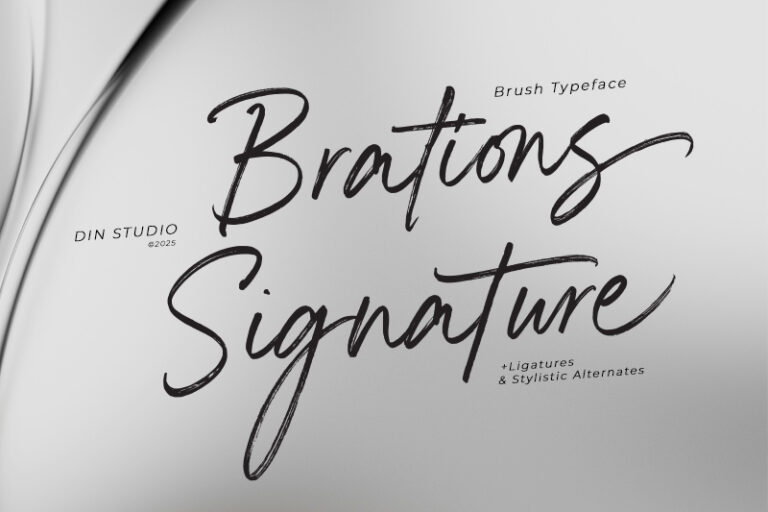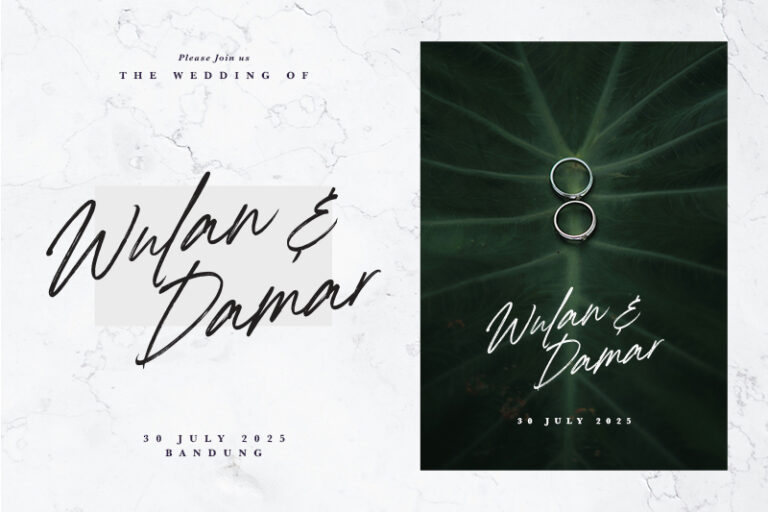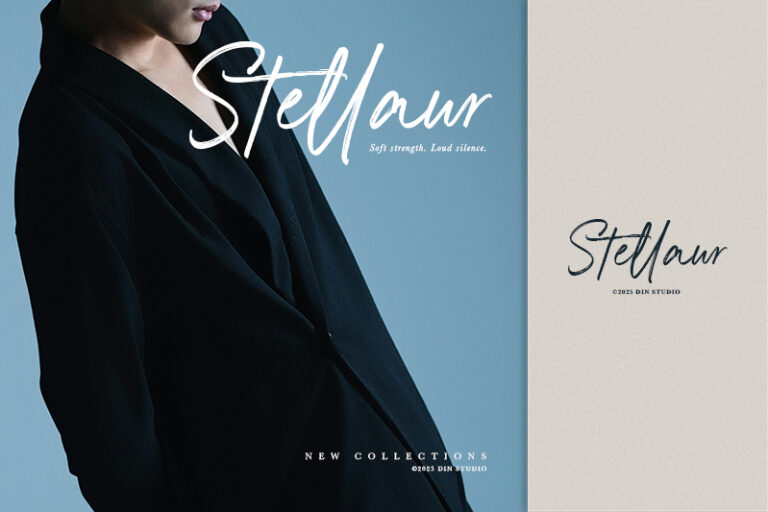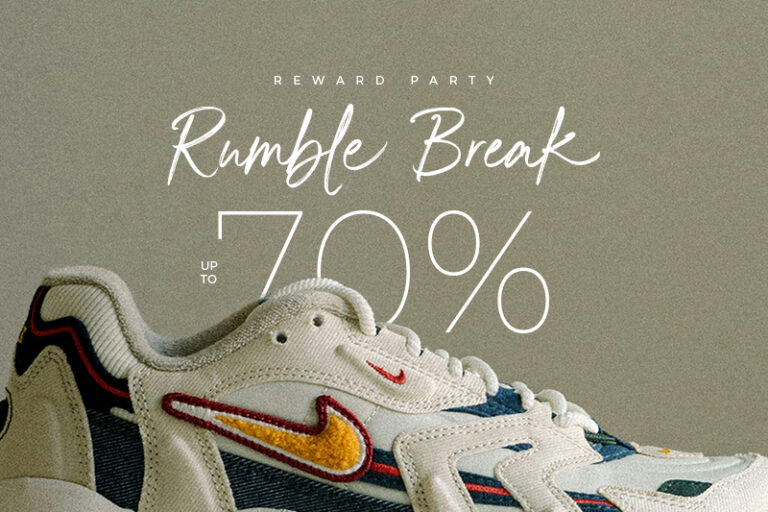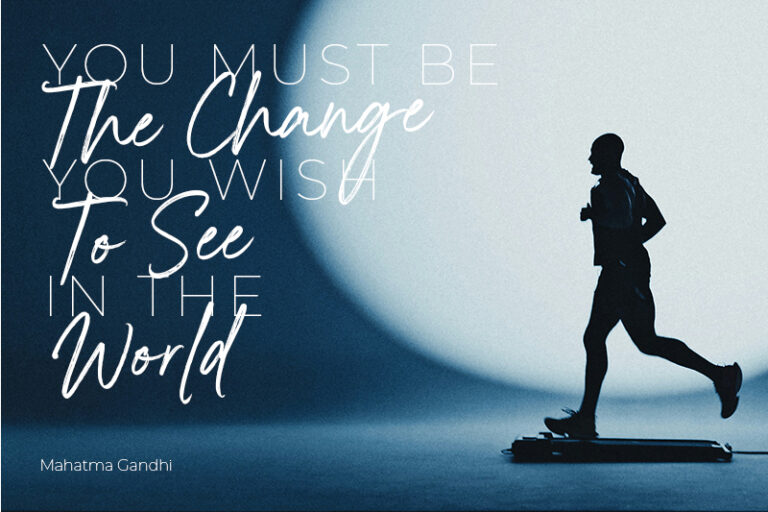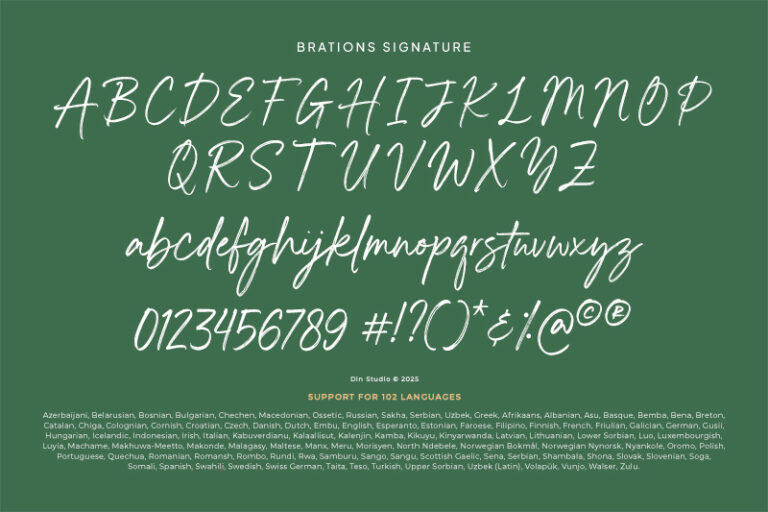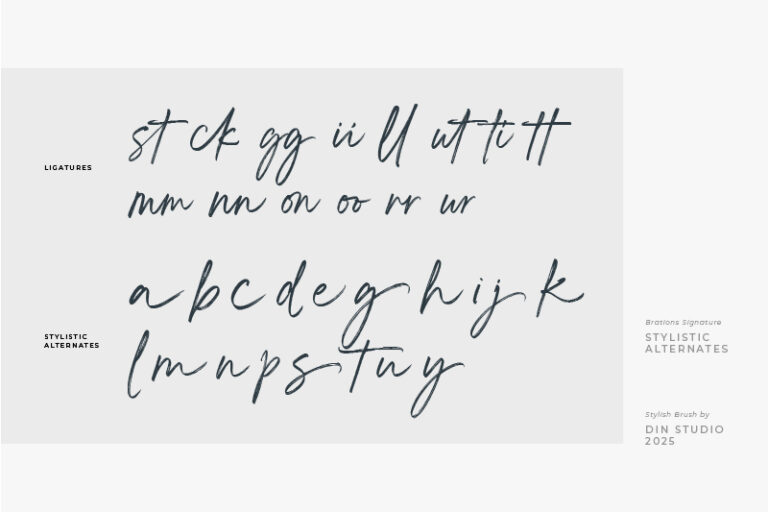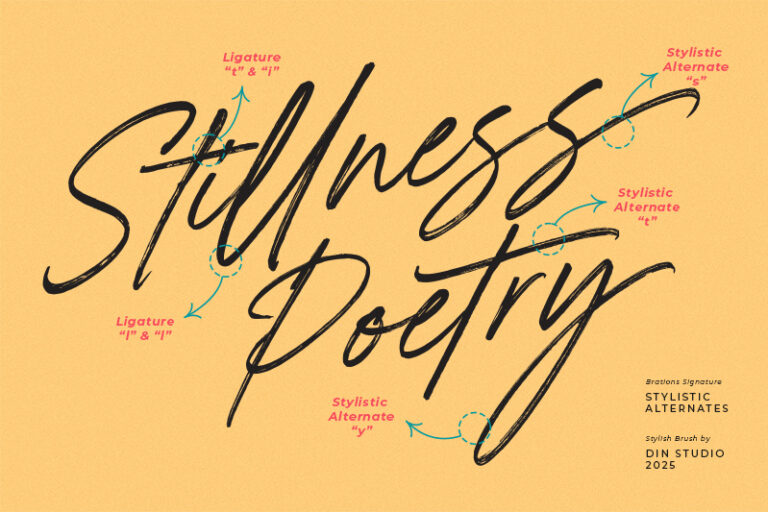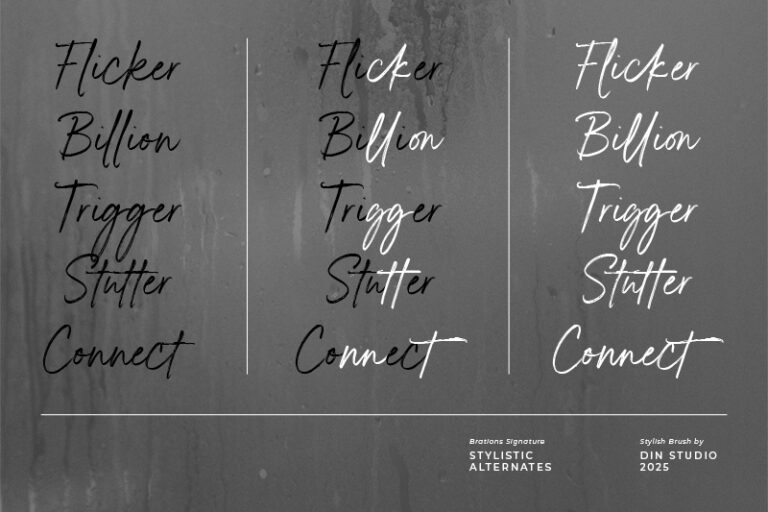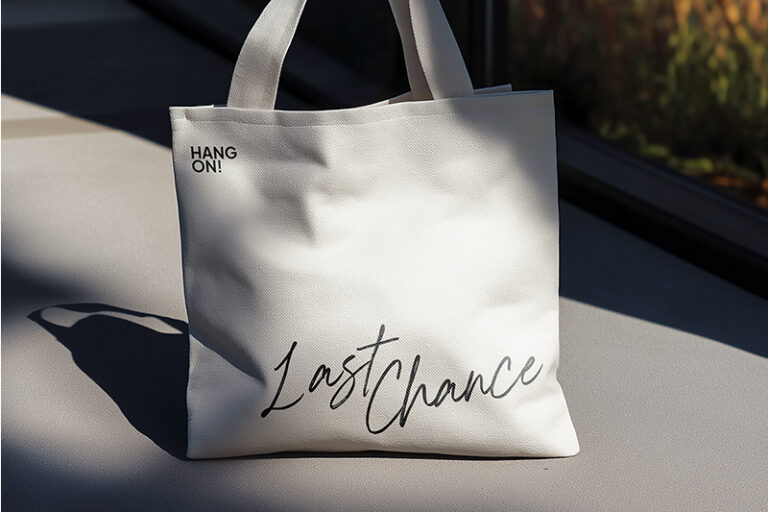
Brations Signature – Elegant Brush Script Font
Brations Signature
Brations Signature is a brush script font designed to capture the natural flow and charm of authentic handwriting. Crafted with smooth, expressive strokes, this font beautifully mimics the texture and motion of real brush lettering. Each letter in Brations Signature is created with attention to detail—featuring fluid lines, natural curves, and dynamic movement that reflect the beauty of hand-painted brushwork. The result is a typeface that feels organic, stylish, and effortlessly modern. In addition, enjoy the features here.
- Alternates
- Ligatures
Brations Signature fits in branding, quotes, name cards, apparels, logos, posters, and many more designs. Find out more ways to use this font by taking a look at the font preview.